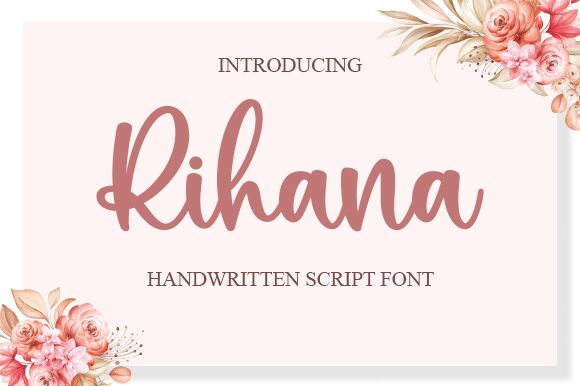
Rihana
Rihana is a delightful semi-bold handwritten font designed by Graphix Line Studio. Its unique style adds a personal touch to any project, whether it's a wedding invitation or a social media post. With its natural curves and playful strokes, Rihana is perfect for adding a touch of whimsy to your designs. Use it for branding materials, product packaging, or even website headers. The possibilities are endless with this versatile typeface. Let Rihana elevate your designs and bring them to life in ways you never thought possible!